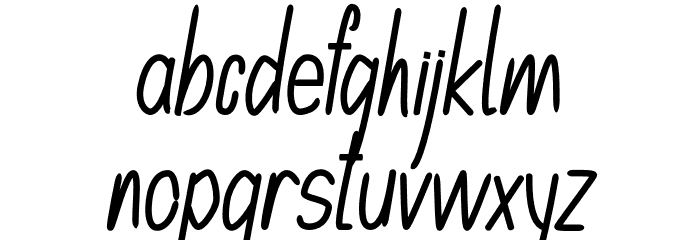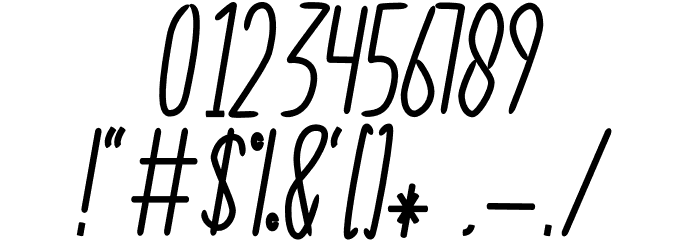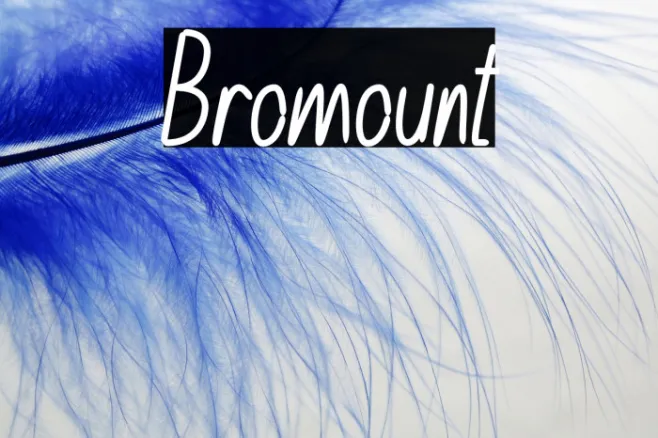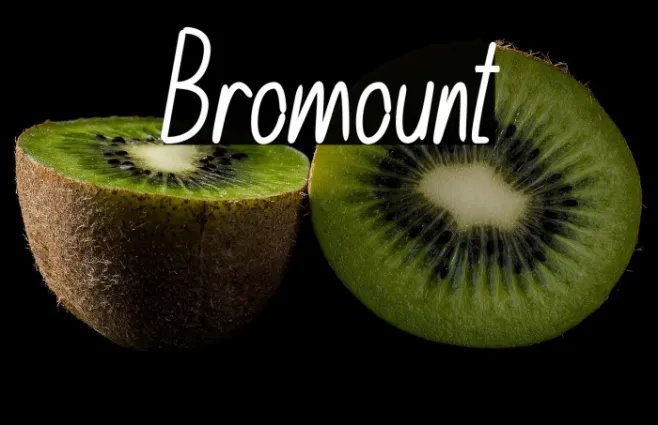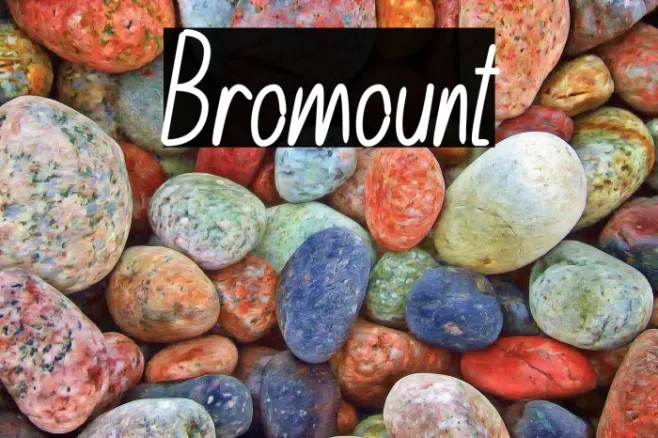
Bromount Font
This font features a handwritten style with a casual and flowing appearance. The characters are slightly slanted, giving it a dynamic and lively feel. The strokes are consistent in width, providing a uniform look across all letters and numbers. The uppercase letters are tall and narrow, while the lowercase letters maintain a similar width, creating a cohesive and harmonious design. The numerals are clear and easy to read, matching the overall aesthetic of the font. Special characters are included, maintaining the same handwritten style, making this font versatile for various uses.
A casual, handwritten font with a dynamic and flowing style.
- Font: Bromount
- Proposed Projects: Ideal for greeting cards, personal branding, social media graphics, and informal invitations.
- Category: Handwritten
- Overall Style: Casual
- Use Case: Logos, Headlines, Informal Text